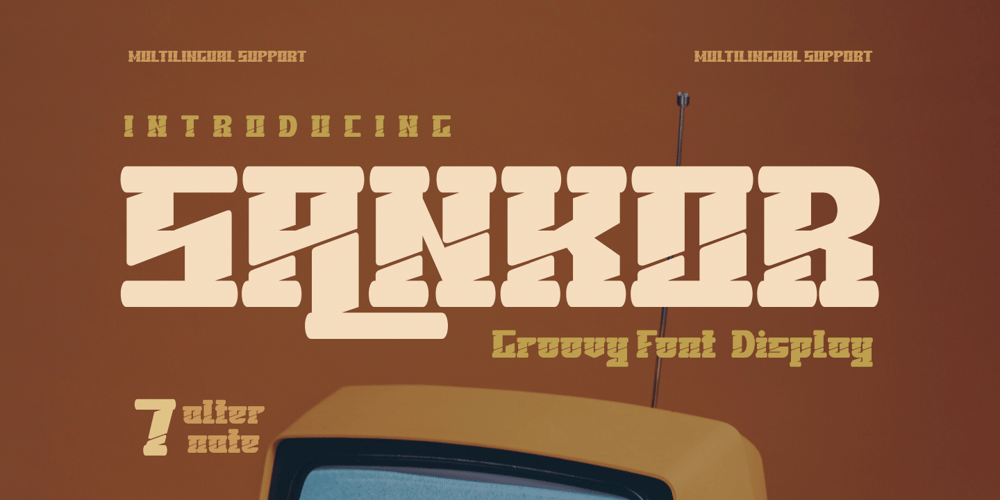
Sankor Font Family was designed by Rozikan and published by Twinletter. Sankor contains 1 styles and family package options. Introducing the Sankor display font. This font is perfect for any project that needs a modern twist on a classic design. It’s unique, stylish, and fun. Having a bold anatomical shape makes it beautiful and visually unique from most other fonts. Your project can be made more stunning by adding this font.What’s Included : Standard glyphs Iso Latin 1 Simple installations We highly recommend using a program that supports OpenType features and Glyphs panels like many Adobe apps and Corel Draw, so you can see and access all Glyph variations. PUA Encoded Characters – Fully accessible without additional design software. Fonts include Multilingual support